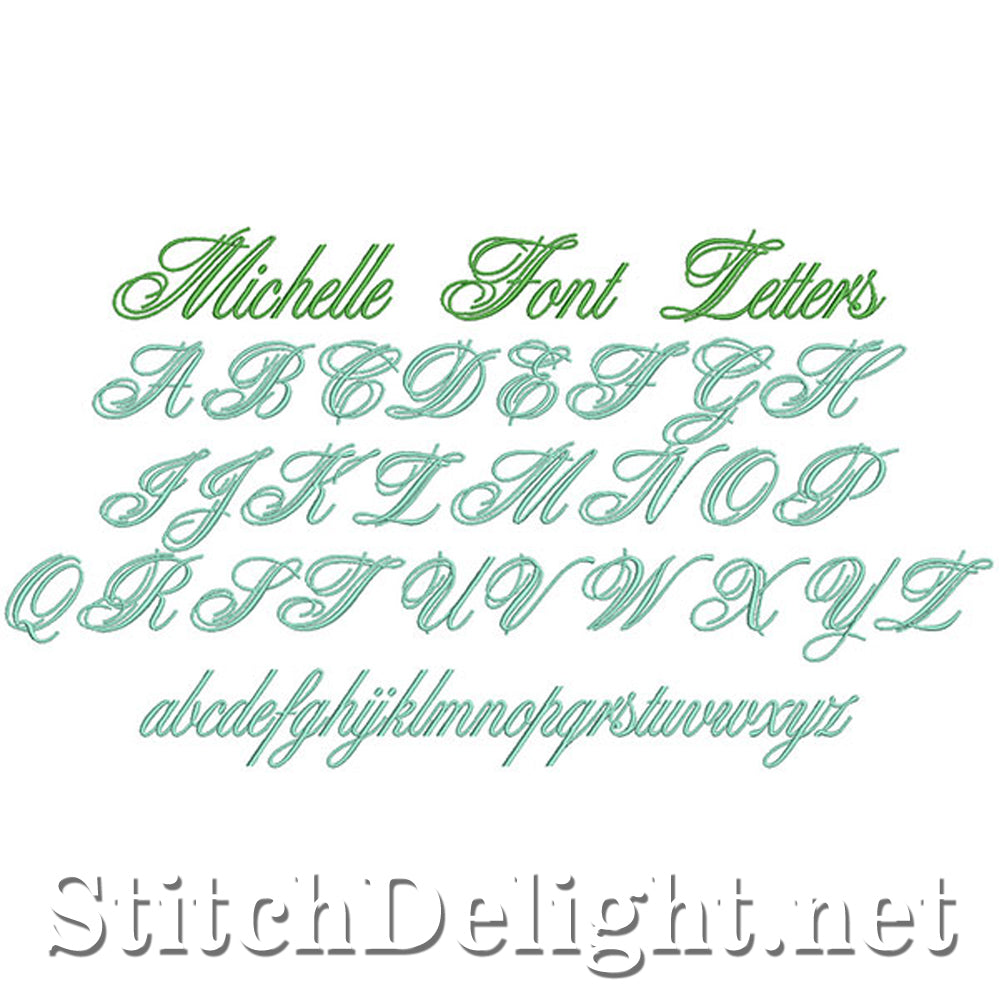
Love the swirtl type fonts, this one is for you, perfect for Monograms on towels as they are quite big, most letters fit in the 4inch height field, but few like the G goes into the 5inch stitch fields